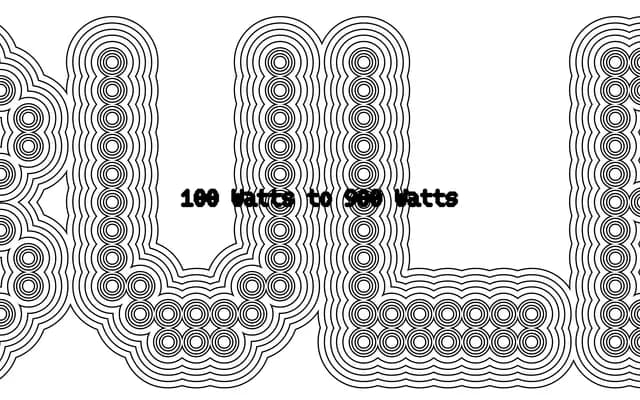
Bulb
Off Type · Mat Desjardins
A 27-style display family by Mat Desjardins built around the visual metaphor of light bulb glow, with a Watt-based weight axis running from dim to brilliantly blurred.
Three sub-families — Classic, Reverse and Monoline — each span nine weights from 100 to 900 Watt, where heavier settings introduce a deliberately bloated, light-leak quality. Bulb Classic carries conventional stroke contrast, Bulb Reverse flips it, and Bulb Monoline strips it away entirely for a cleaner, uniform stroke. Variable cuts accompany each sub-family, and each style includes a set of icons and glyphs tied to the lighting theme.
Bulb is a purely expressive display type family drawing on the visual language of light bulb glows and old punch printers; its three sub-families, including a reverse-contrast cut, place it firmly in decorative display territory rather than any functional classification.